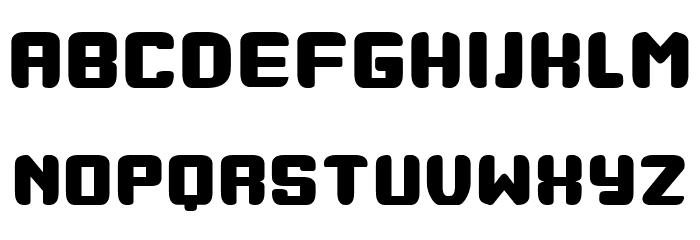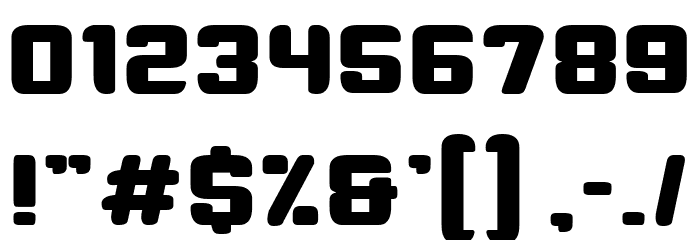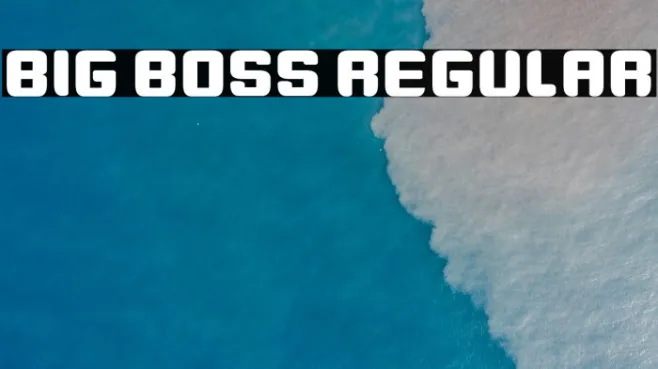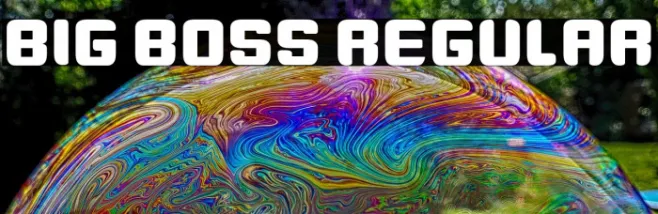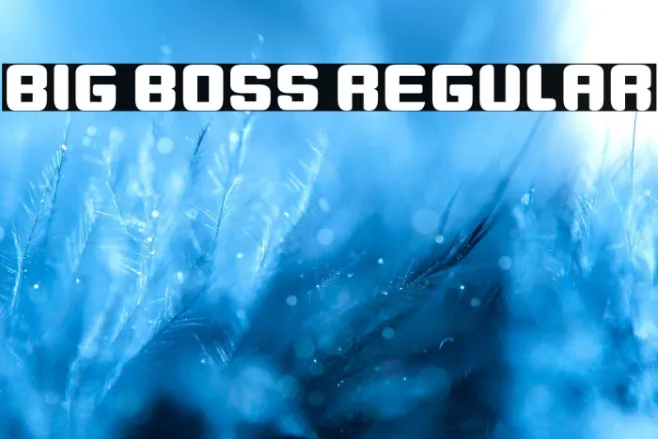
Big Boss Regular Font
This font features a bold and robust design with rounded edges, giving it a modern and approachable appearance. The characters are uniformly thick, providing a consistent and solid look across all letters and numbers. Its geometric structure is evident in the symmetrical and balanced forms, making it highly legible and impactful. The font's boldness is complemented by its slightly condensed width, allowing it to fit more text into a given space without sacrificing readability. The spacing between characters is tight, which enhances its compact and cohesive feel. This style is suitable for making strong visual statements, whether in headlines or branding materials.
A bold, rounded font with a modern and geometric design.
- Proposed Projects: Ideal for branding, headlines, posters, and any design requiring a strong visual impact.
- Character Spacing: Tight